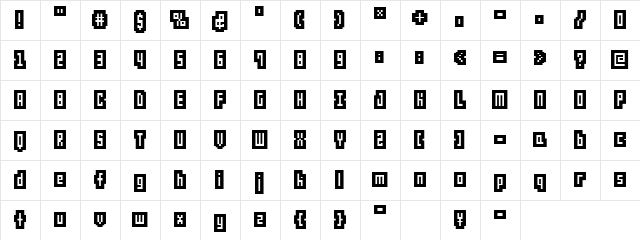
BM wappen A14
Design Context for BM wappen Typeface
BM wappen takes a measured approach to typography — its balanced proportions and neutral character make it a reliable workhorse for both digital and print work.